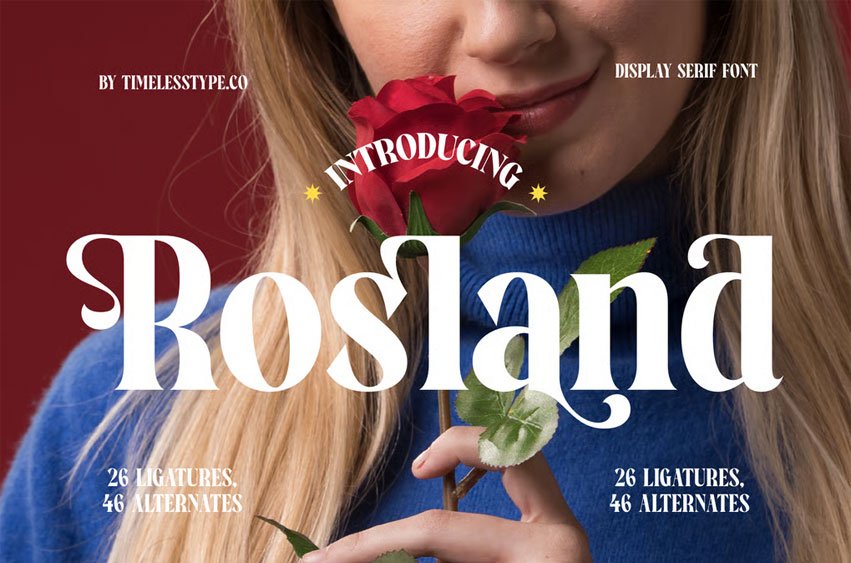
Rosland Font is a modern display serif font that blends timeless elegance with a romantic flair. Designed with 26 ligatures and 46 alternates, it offers sculpted letterforms that exude sophistication and warmth. wedding invitations, packaging, and editorial designs.
Rosland brings a touch of charm and refinement to any creative project.